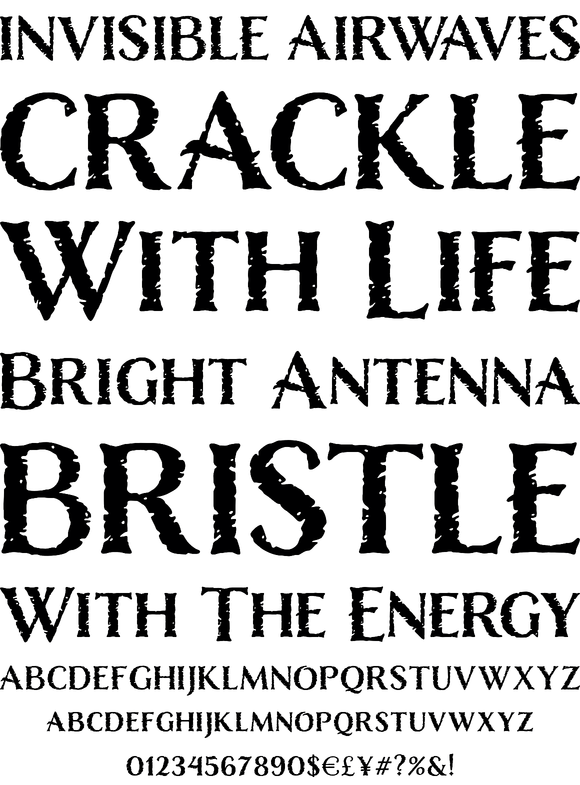
This design took me on a voyage across continents and cultures, its look taking shape in many forms. Western, tropical, and vintage old-world with a modern touch, Nelson is perfectly suited for headlines and logos, packaging and advertising. Featuring four sizes of capital letters – large, standard, petite and small, over 150 alternates and swashes and two sets of decorated initials (Nelson Rugged & Bold) – this titling font makes crafting a headline or logo a fun and interesting pursuit.